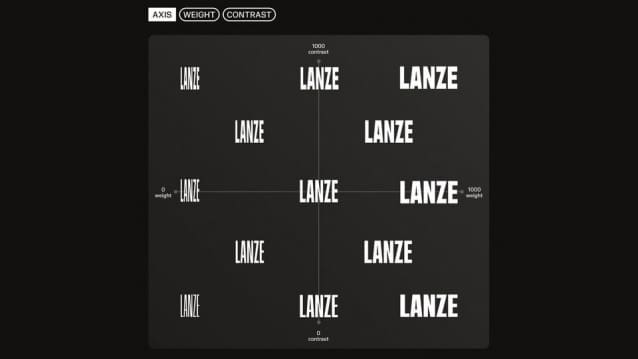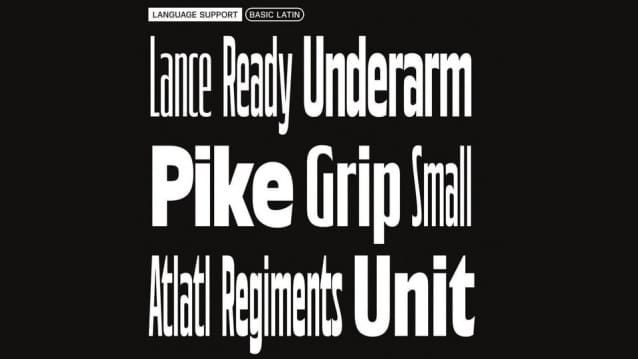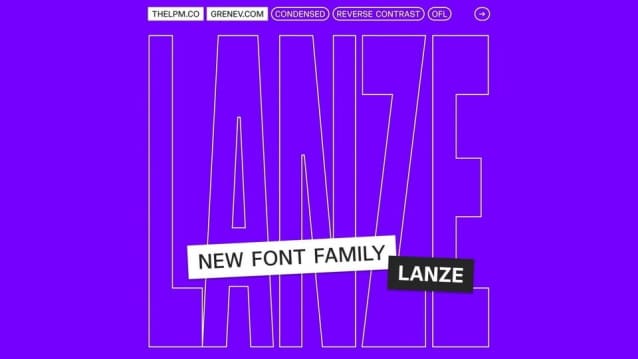
Lanze Font Family
Lanze Font Family is a very sharp, but also humanistic in it’s nature condensed sans serif with two variable axis: contrast and weight. The four styles – Pike, Spear, Scythe and Halberd – are named after medieval weapons, and their sharp geometry and contrasting shapes make the typeface particularly effective for the music industry, film, fashion and tech startups.
Lanze is based on a balance between structural clarity and humanistic plasticity. The variable font file allows for a wide range of styles, from neutral to extremely contrast, giving designers a flexible tool for both web and large format work.